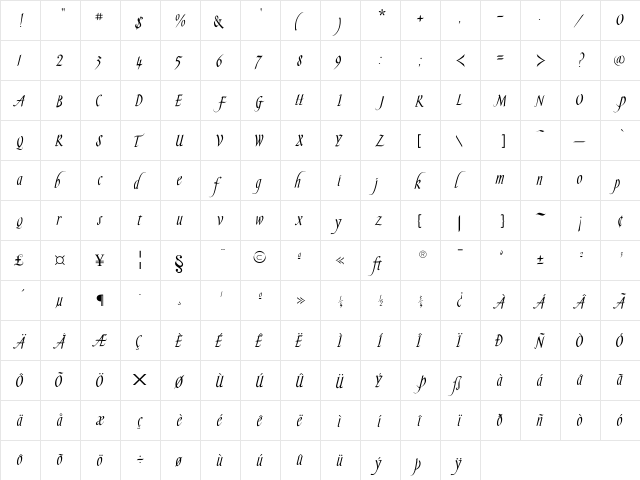
SlenderGoldFLF Regular
Design Context for SlenderGoldFLF Typeface
SlenderGoldFLF is a composed and adaptable typeface that performs quietly and consistently across a wide range of design contexts.